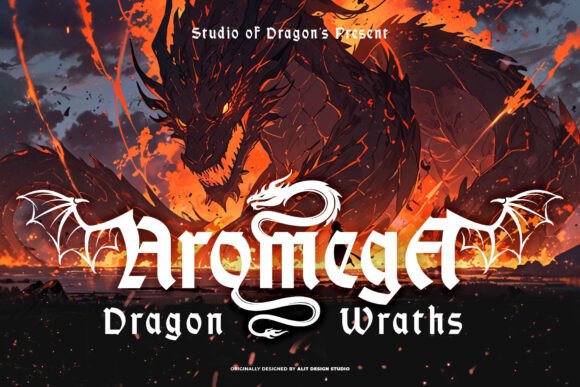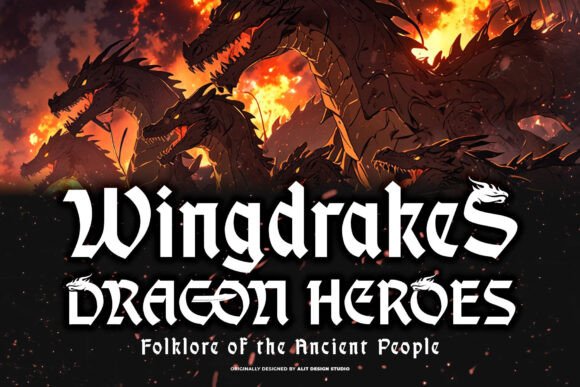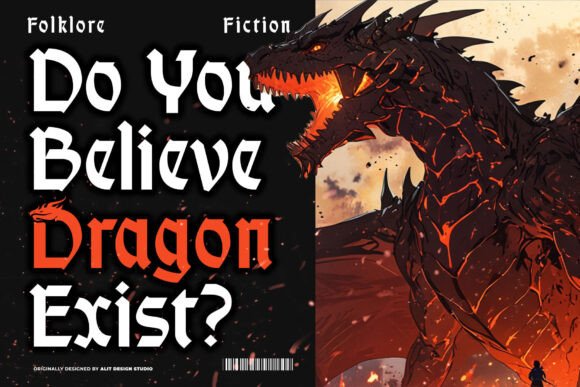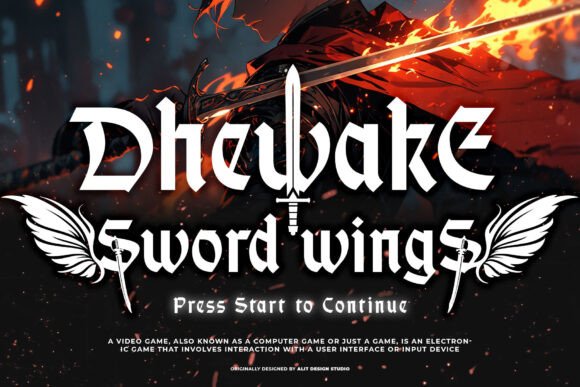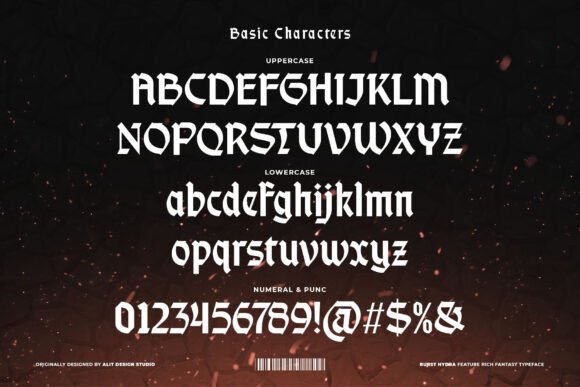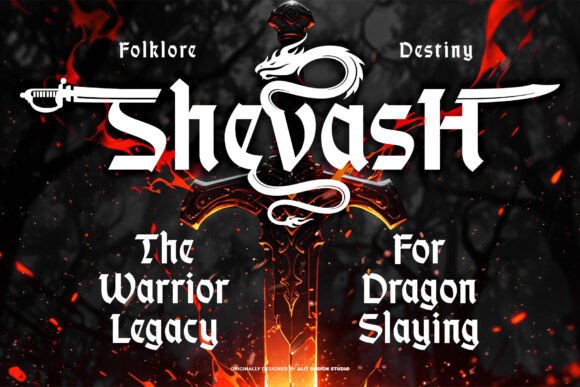
Unleash Ancient Power with Brust Hydra Font
Imagine you’re working on a fantasy-themed project, and you’re struggling to find the perfect font that captures the essence of myth and legend. You’re not alone! I’ve been there too. Recently, I was working on a game UI design project, and I needed a font that would convey strength, sophistication, and a touch of ancient power. That’s when I stumbled upon Brust Hydra Font, and it completely transformed my design.
A Personal Review of Brust Hydra Font
As a designer, I’m always on the lookout for fonts that can elevate my work. Brust Hydra Font has become one of my go-to typefaces for fantasy-themed projects. Here’s what I love about it:
• ✨ Unique blend of semi-blackletter and serif elegance: Brust Hydra Font combines the best of both worlds, making it perfect for titles, logos, posters, and game UI.
• ✅ Decorative elements: The font comes with decorative elements like sabers, flame motifs, and dragon insignias, which add a touch of visual storytelling to any design.
• ⚡️ Commanding presence: Brust Hydra Font has a bold and heroic feel to it, making it perfect for designs that demand strength and sophistication.
While Brust Hydra Font is an amazing typeface, there are a few things to keep in mind:
• 🤔 Limited use in body text: Due to its bold and decorative nature, Brust Hydra Font might not be the best choice for body text. It’s better suited for titles, headings, and emphasis.
• ⚠️ Requires careful kerning: As with any font, kerning is crucial to ensure that the text looks professional. Be prepared to adjust the kerning to get the best results.
The Backstory of Brust Hydra Font
Brust Hydra Font was designed with the valor of Greek heroes and the fearsome strength of mythical beasts like the Hydra in mind. The designer aimed to create a typeface that would evoke the armor, swords, and wings of warriors and legendary creatures. With its unique blend of semi-blackletter and serif elegance, Brust Hydra Font is perfect for designs that demand strength, sophistication, and a touch of ancient power.
Font Name Brust Hydra Font
Author Alit Design
What inspired the design of Brust Hydra Font? The designer drew inspiration from Greek heroes and mythical beasts like the Hydra.
Is Brust Hydra Font suitable for body text? Due to its bold and decorative nature, Brust Hydra Font is better suited for titles, headings, and emphasis.